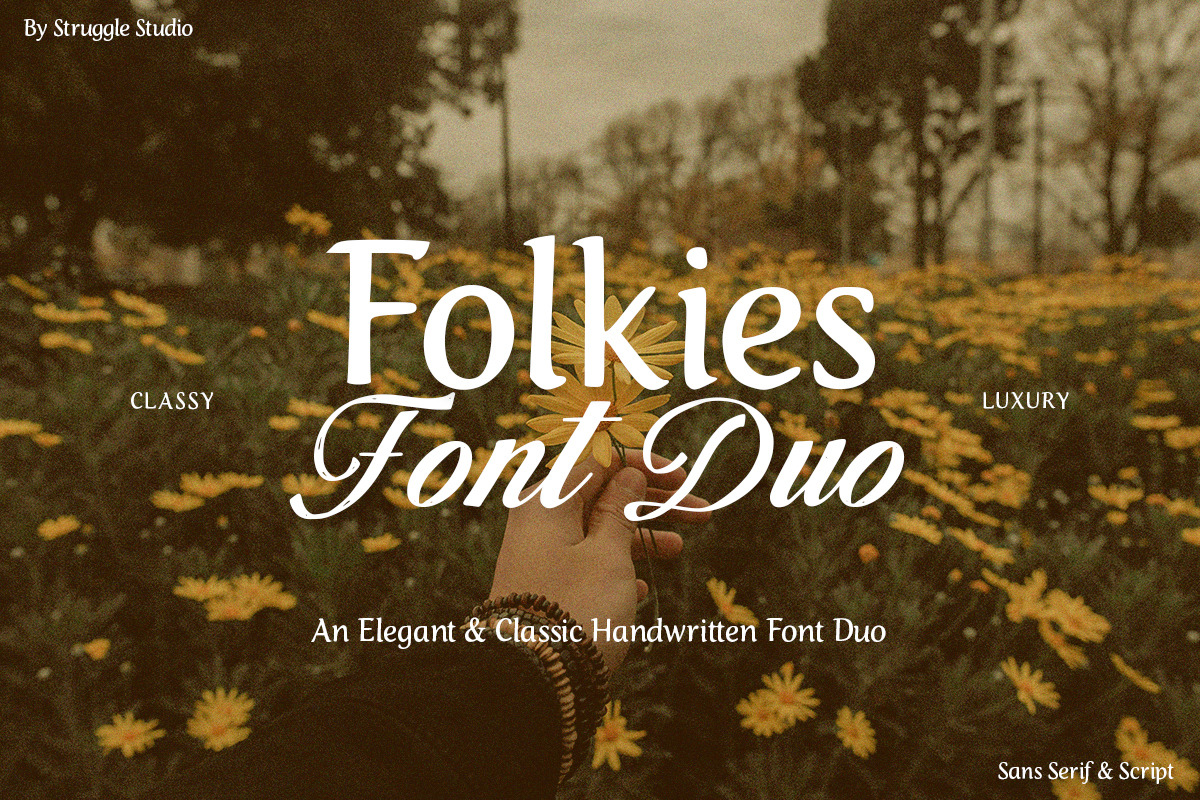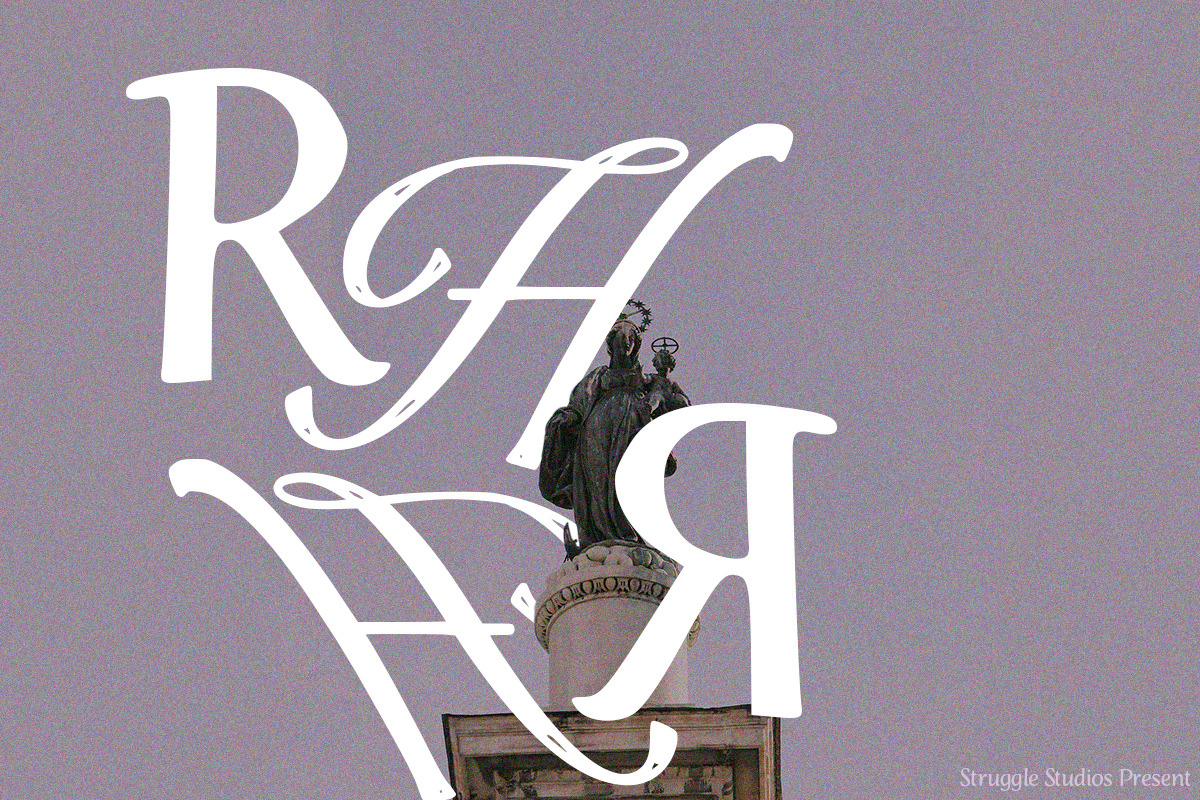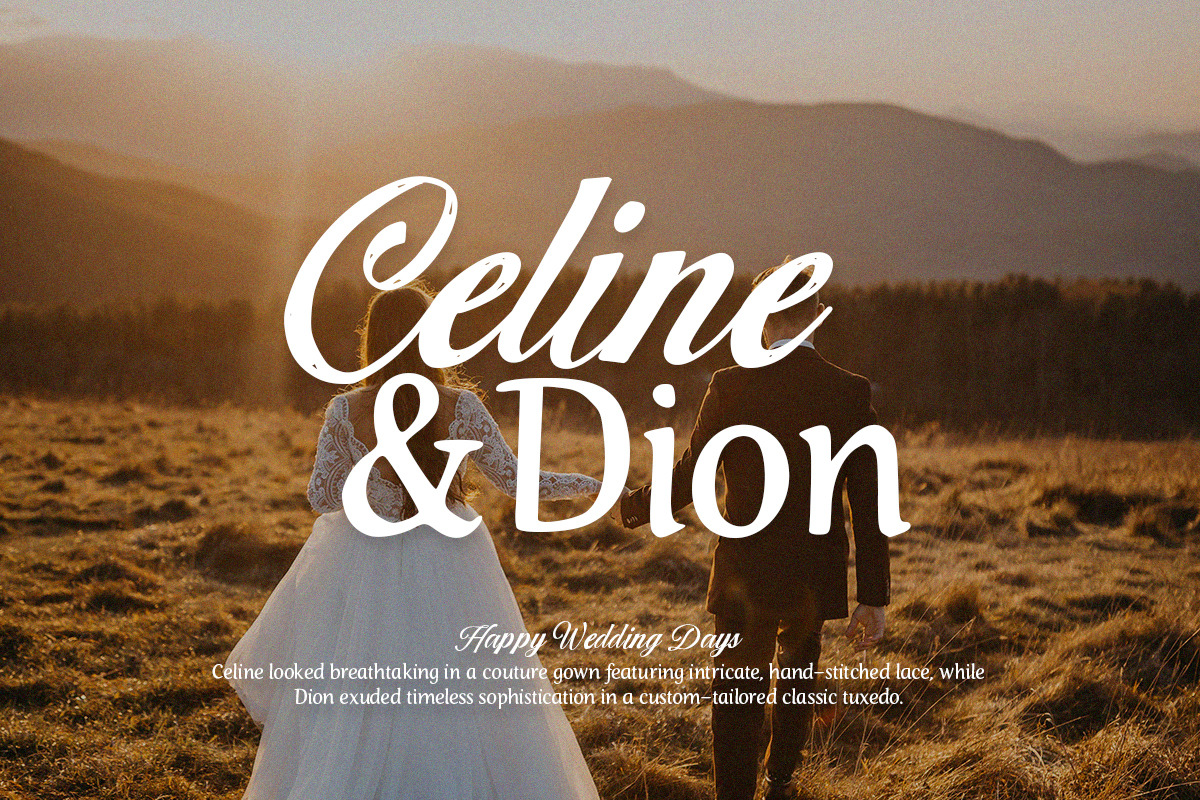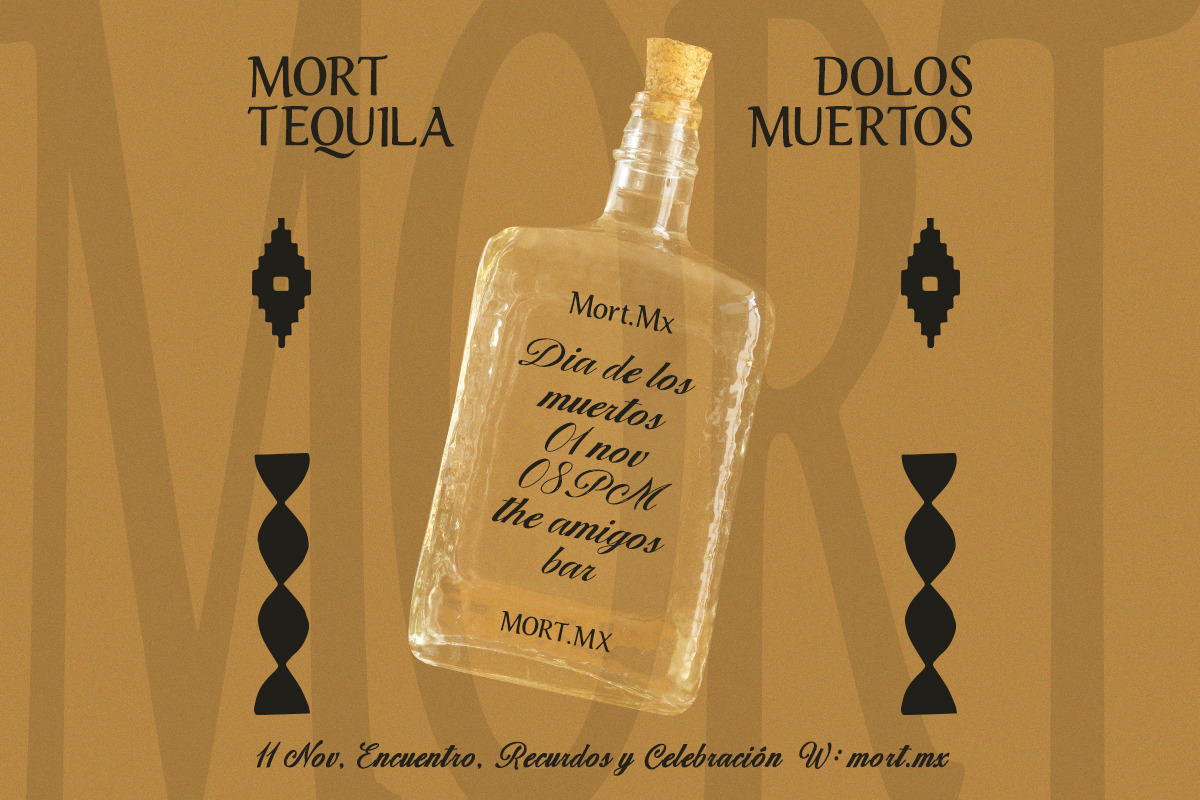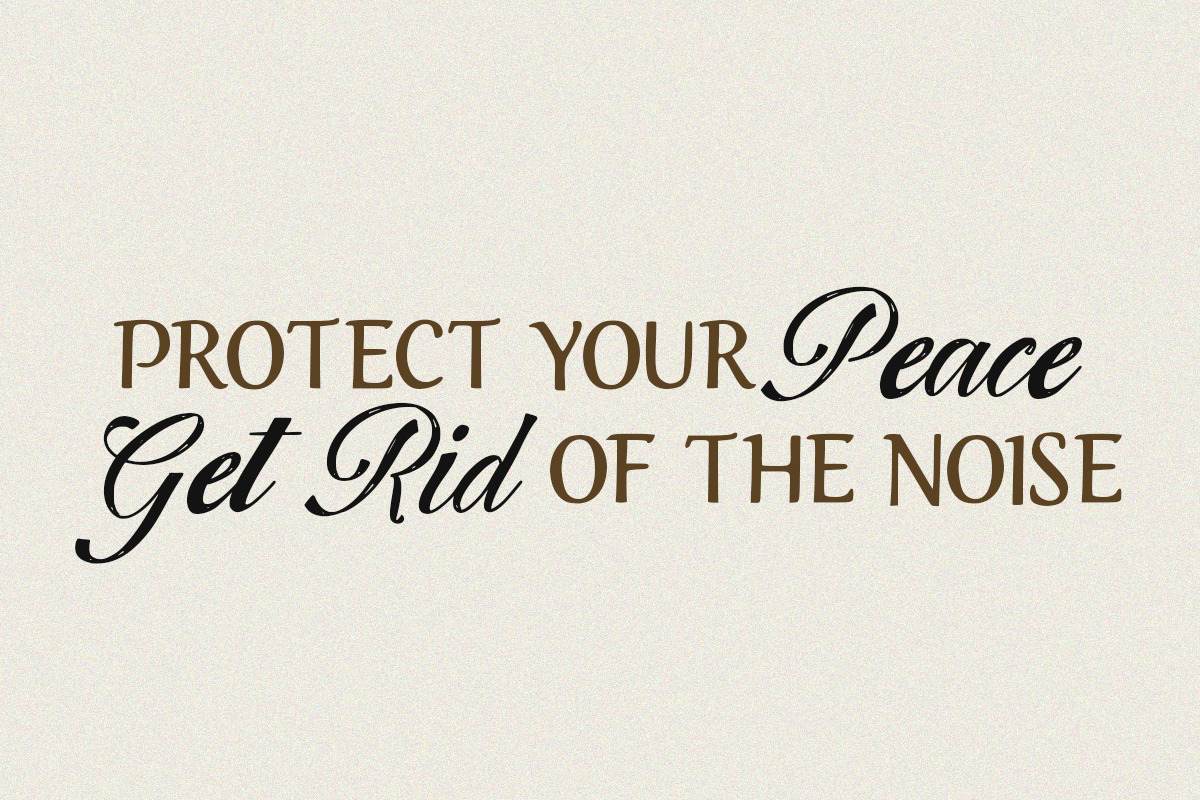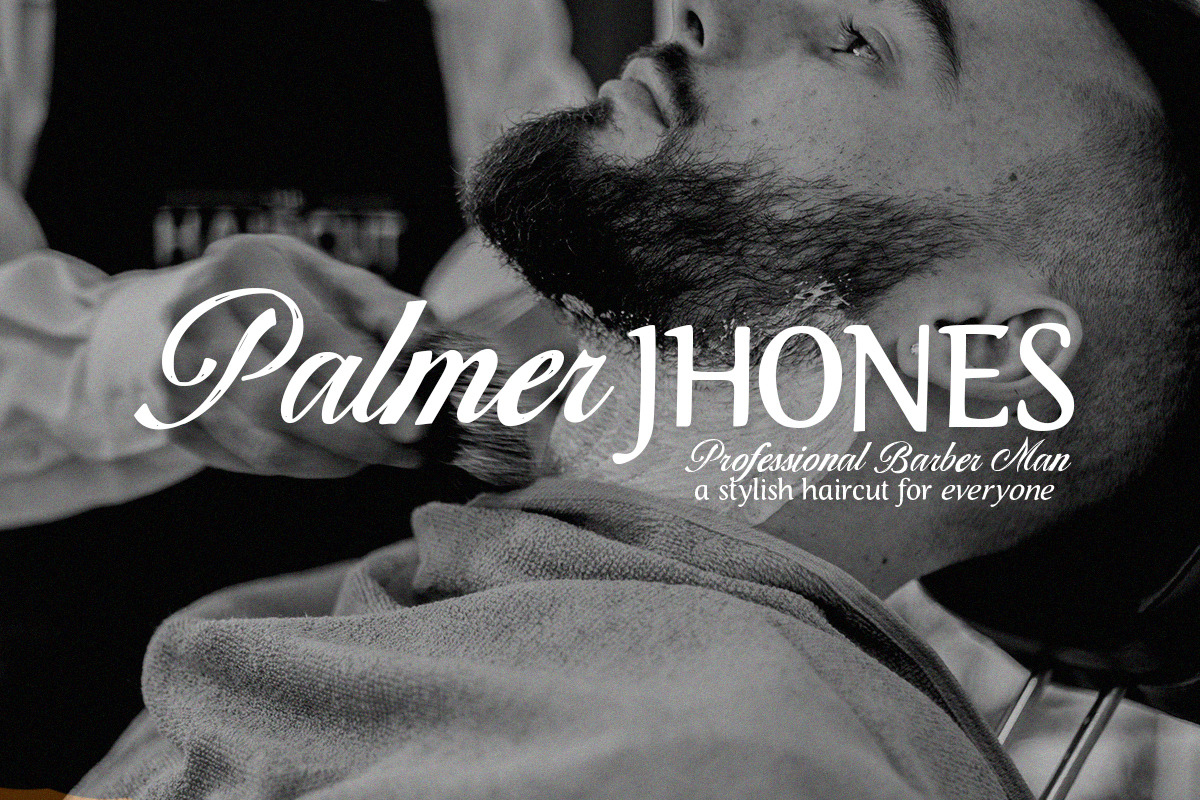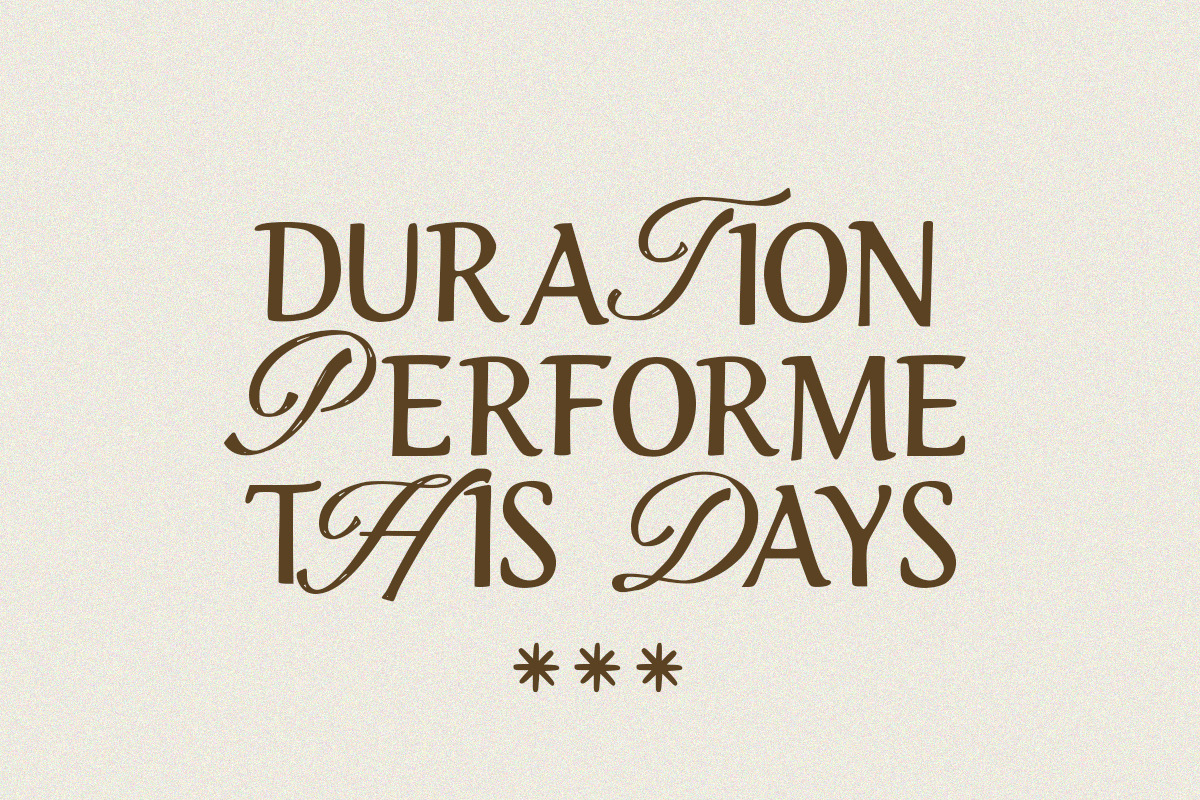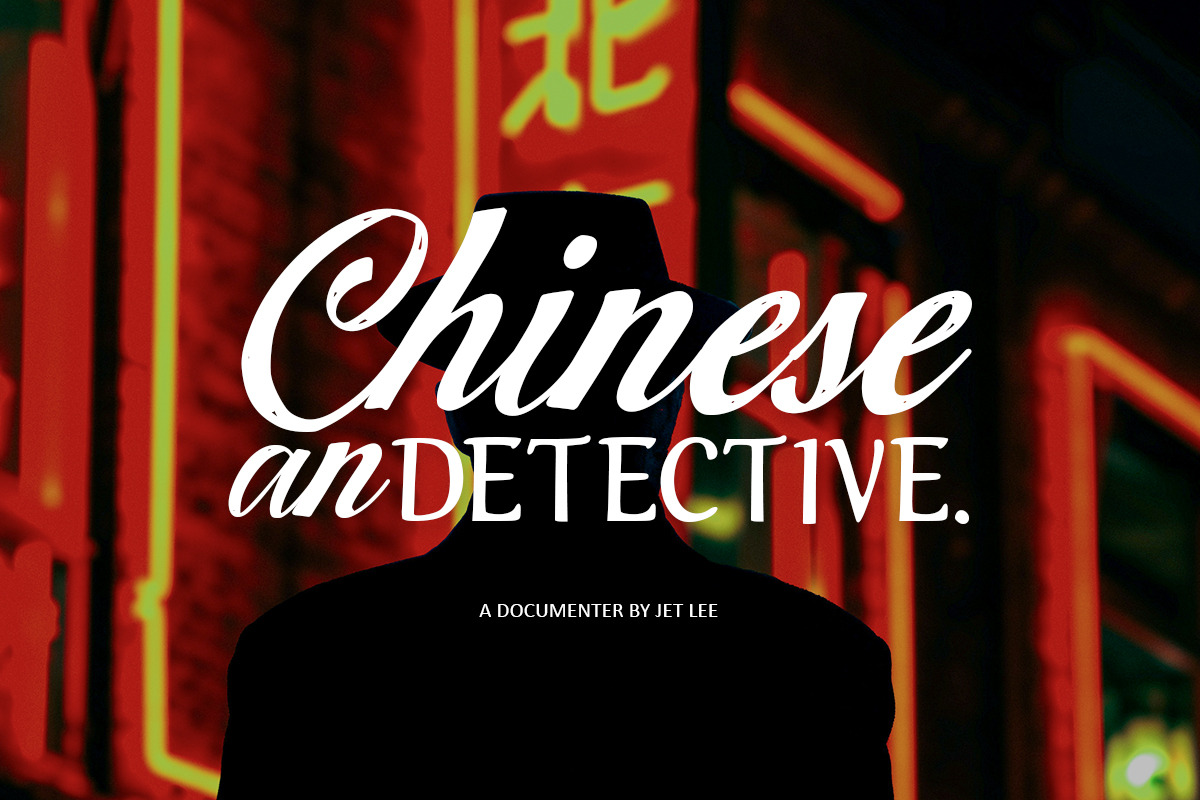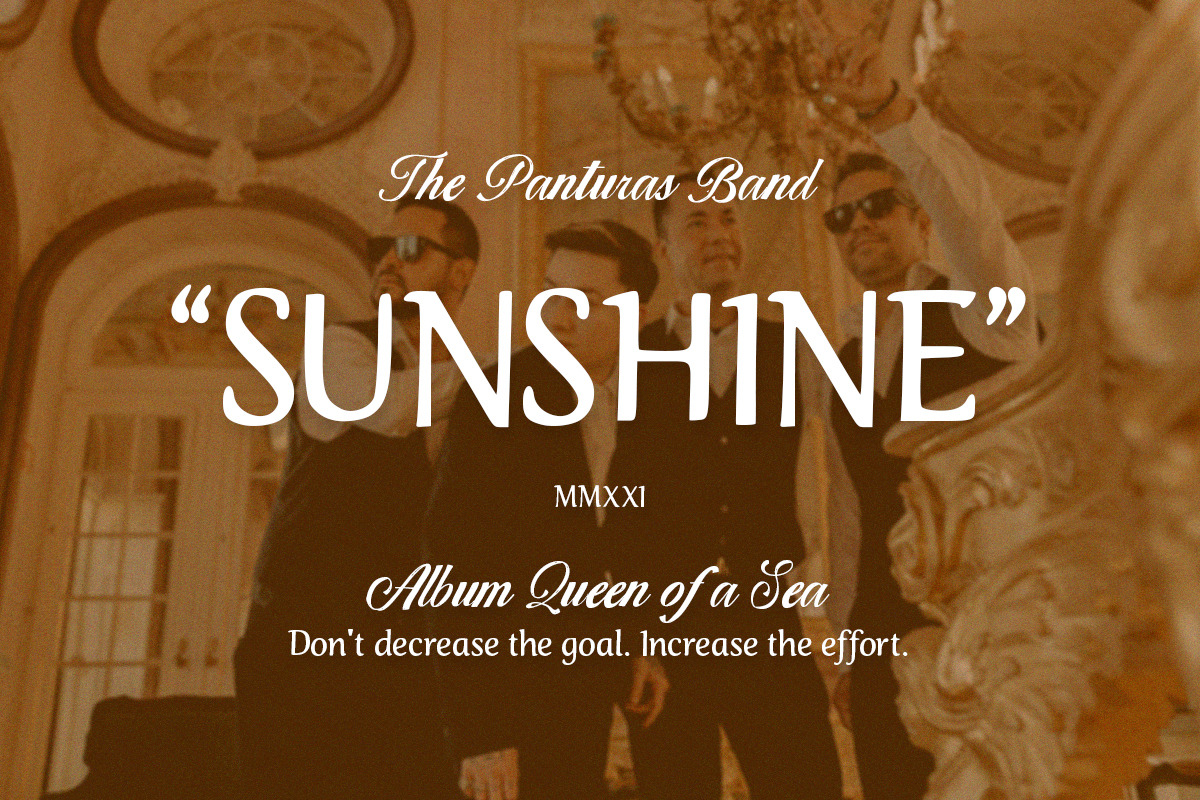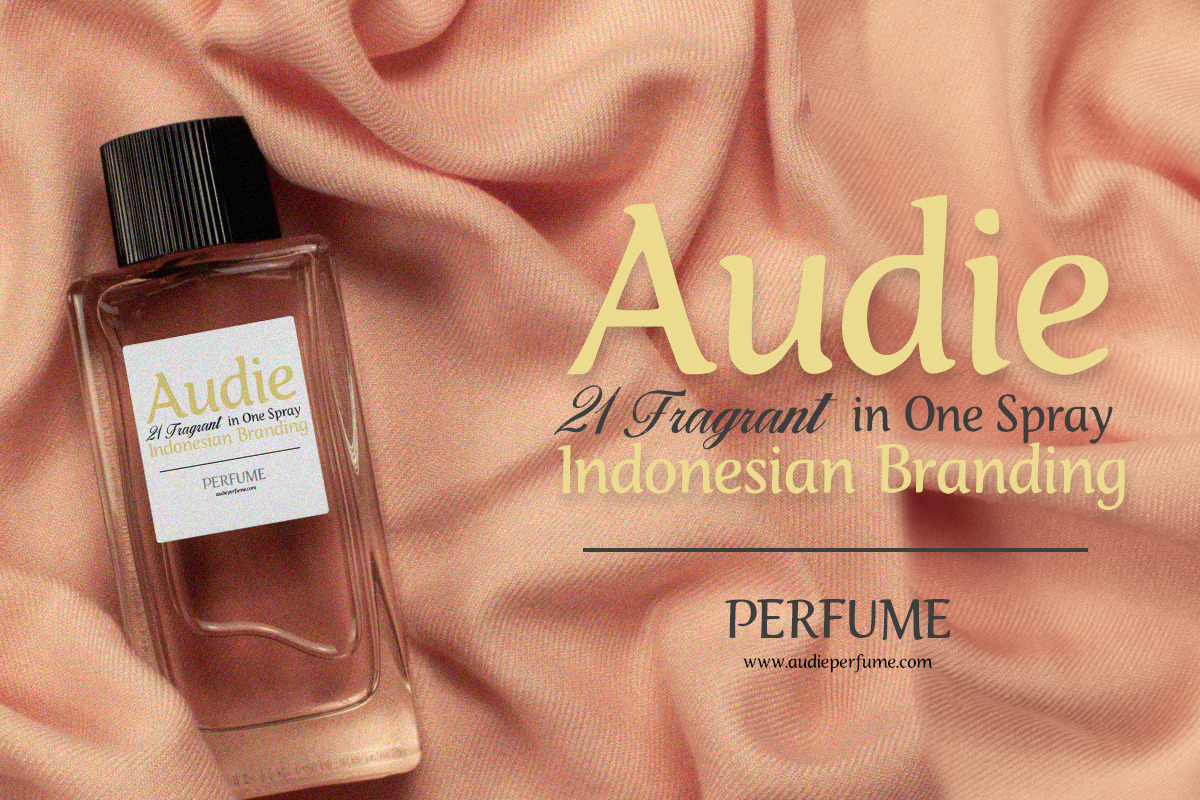
Folkies Font Duo
Folkies Font Duo – A Timeless Blend of Elegance and Heritage Elevate your creative projects with Folkies Font Duo, a masterfully curated pairing of a clean, organic Sans Serif and a flowing, sophisticated Script. Designed by Struggle Studio, this duo strikes the perfect balance between "Classy" and "Luxury," making it an essential tool for designers seeking a warm, authentic aesthetic.
The Perfect Harmony The Folkies collection is built on the philosophy of contrast. The Sans Serif provides a sturdy, legible foundation with a classic touch, while the Script adds a layer of human personality and high-end flair. Together, they eliminate the guesswork of font pairing, ensuring a professional look every time.
Key Highlights: Seamless Pairing: Two distinct styles—Sans Serif and Script—engineered to work together beautifully.
Handcrafted Feel: Captures the nuances of natural handwriting for an authentic, bespoke appearance.
Versatile Aesthetic: Transitions effortlessly between rustic vintage vibes and modern luxury branding.
Ideal Applications: Branding & Identity: Perfect for logos, business cards, and brand guidelines for boutique businesses.
Editorial Design: Beautiful for magazine layouts, book covers, and headers.
Wedding & Events: Adds a romantic and premium touch to invitations, menus, and place cards.
Social Media: Create eye-catching, shareable quotes and lifestyle content.
Packaging: Give your product a "high-street" feel with elegant typography.
What’s Included: Folkies Sans Serif: A clean yet characterful font with an organic silhouette.
Folkies Script: An elegant, rhythmic handwriting font with fluid ligatures.